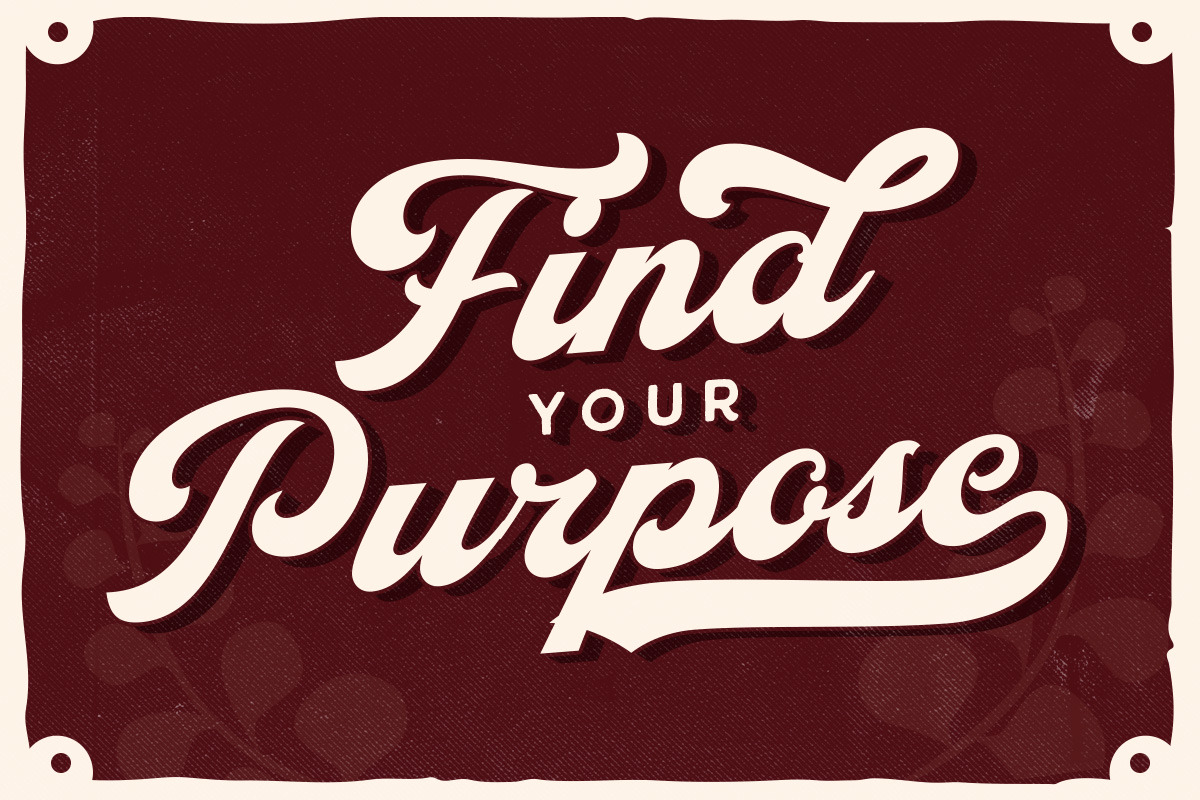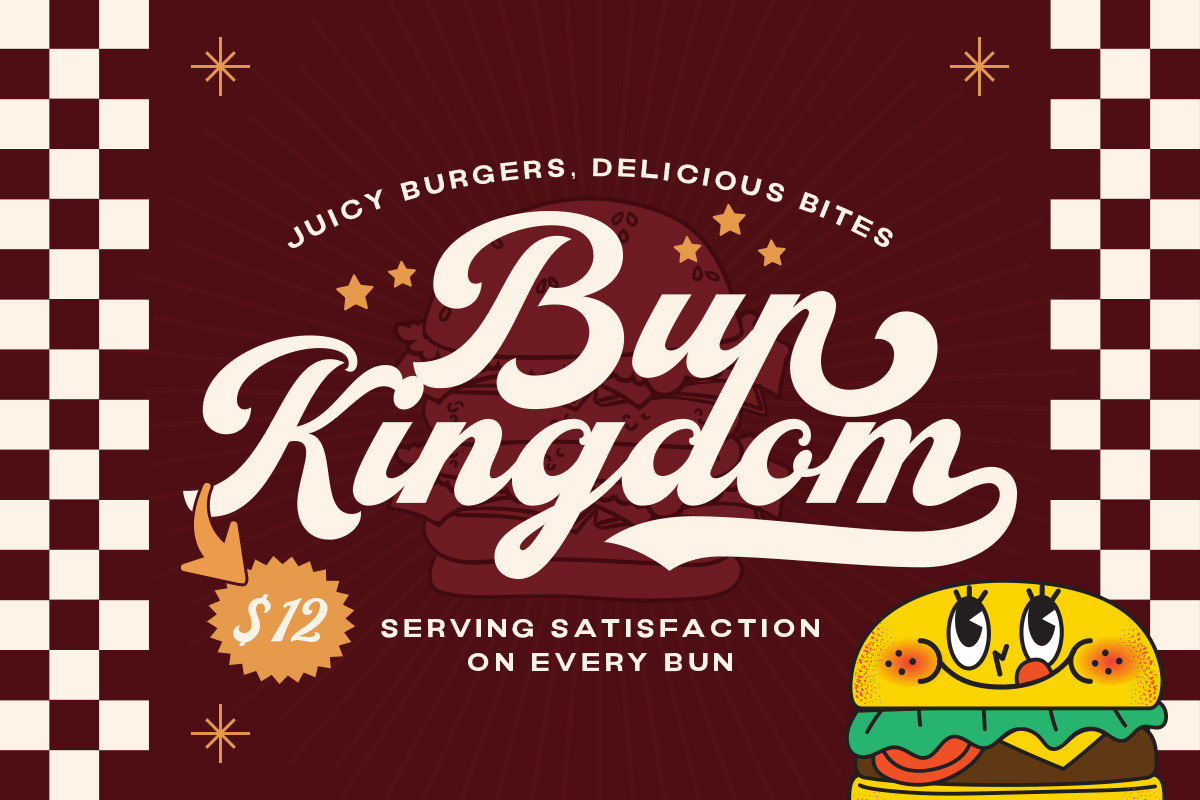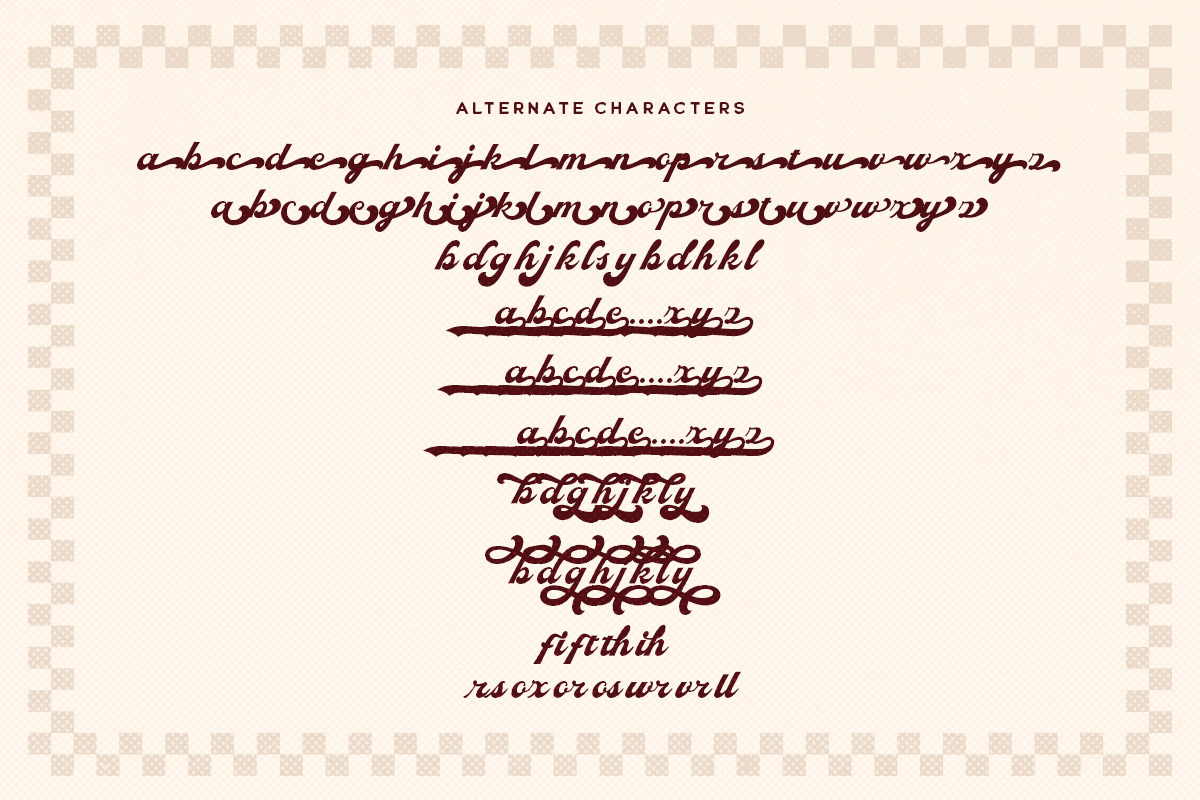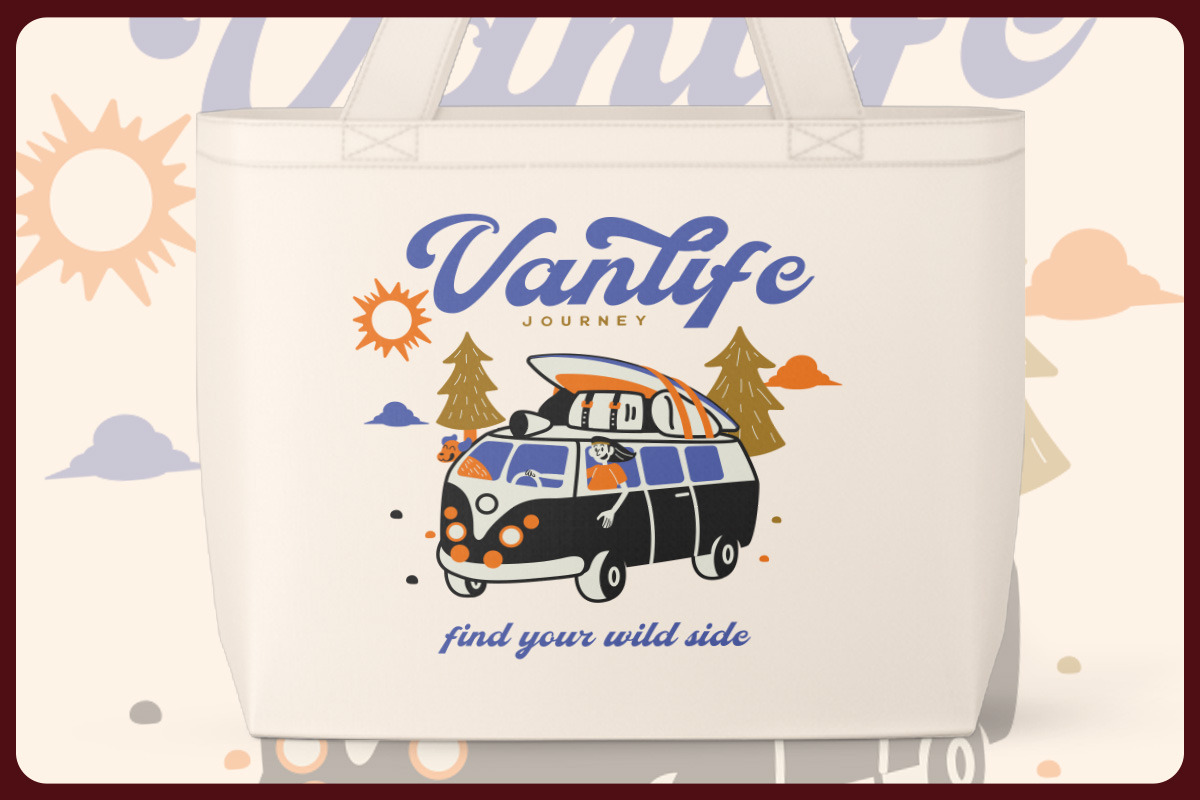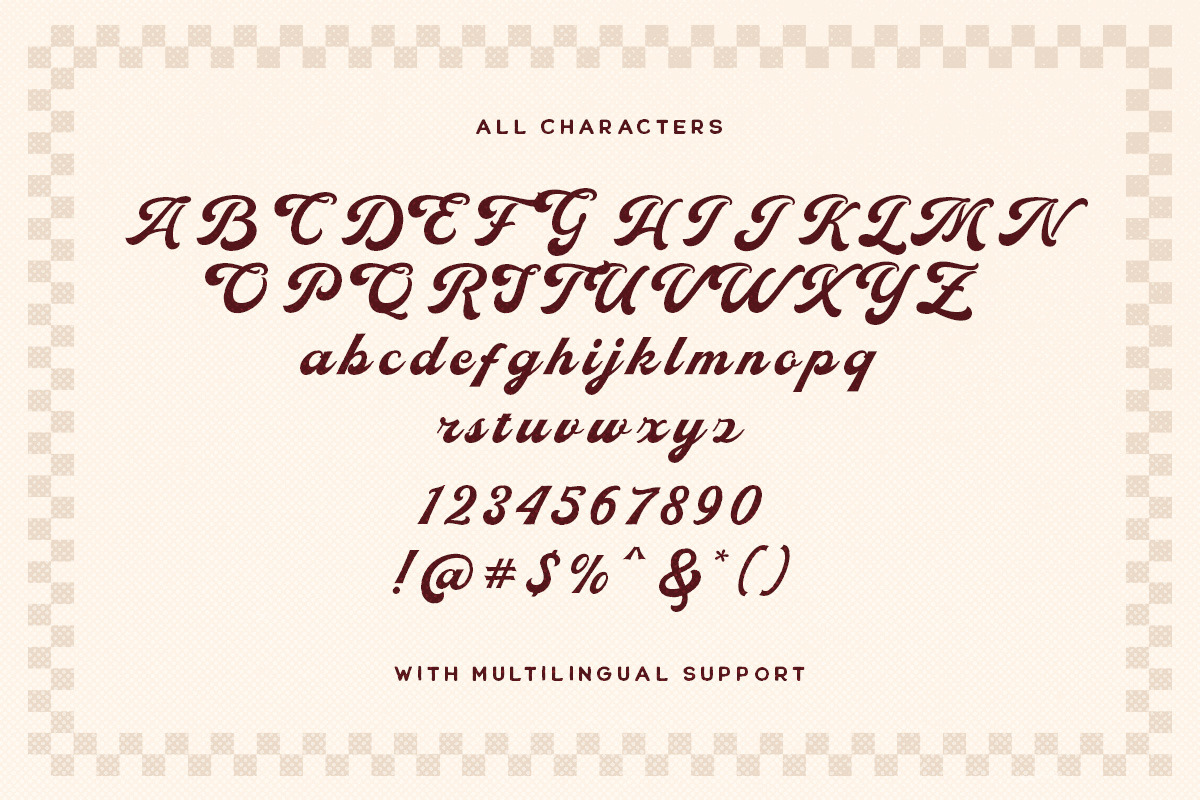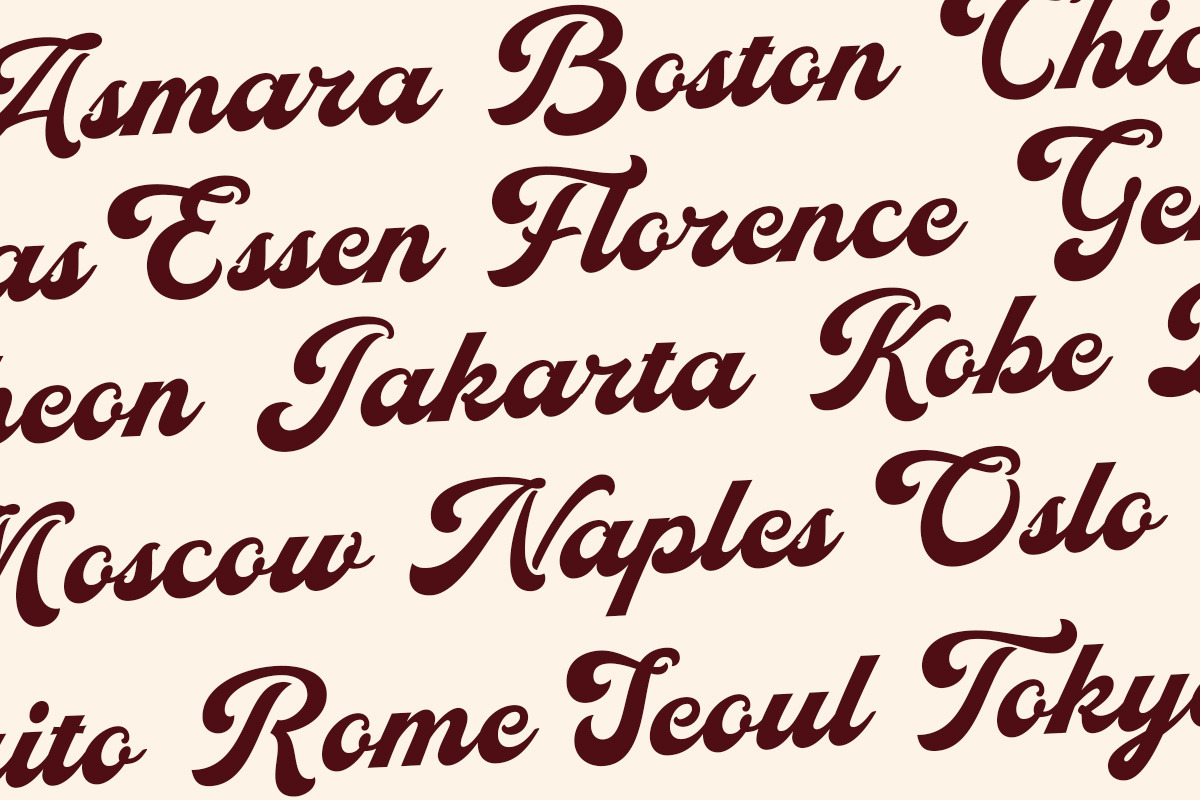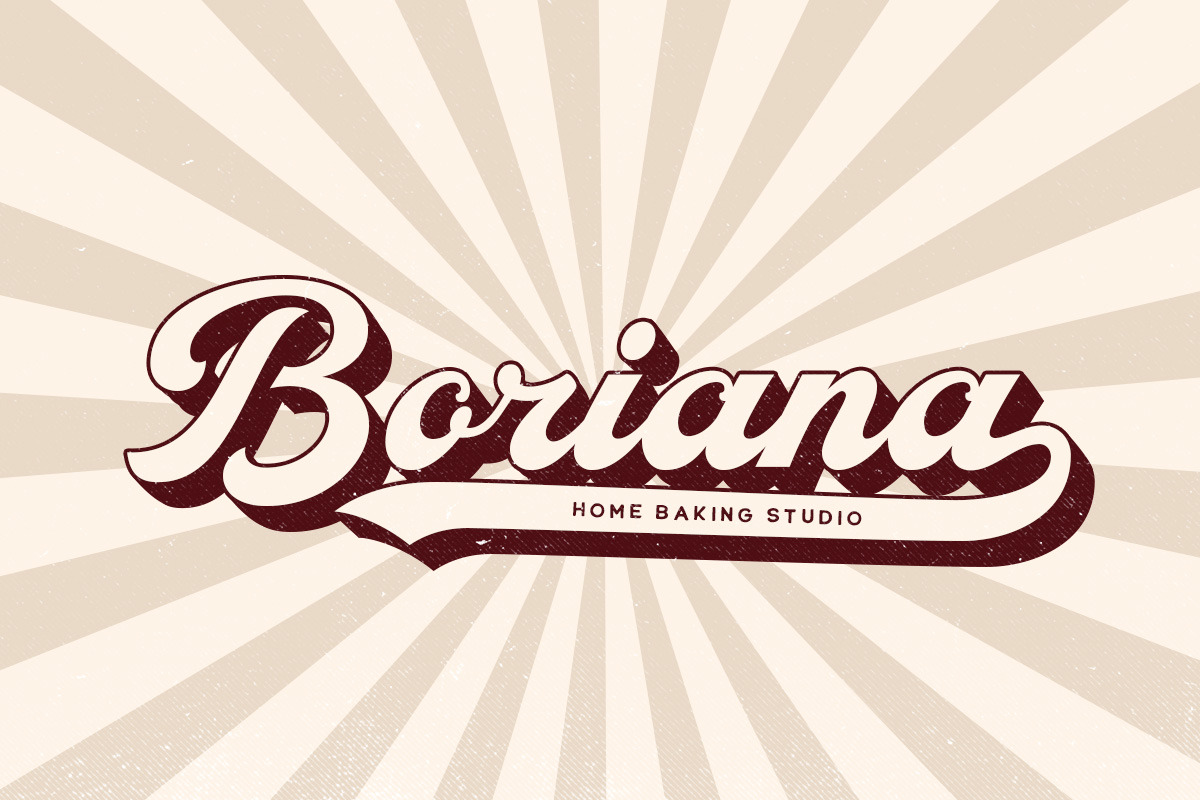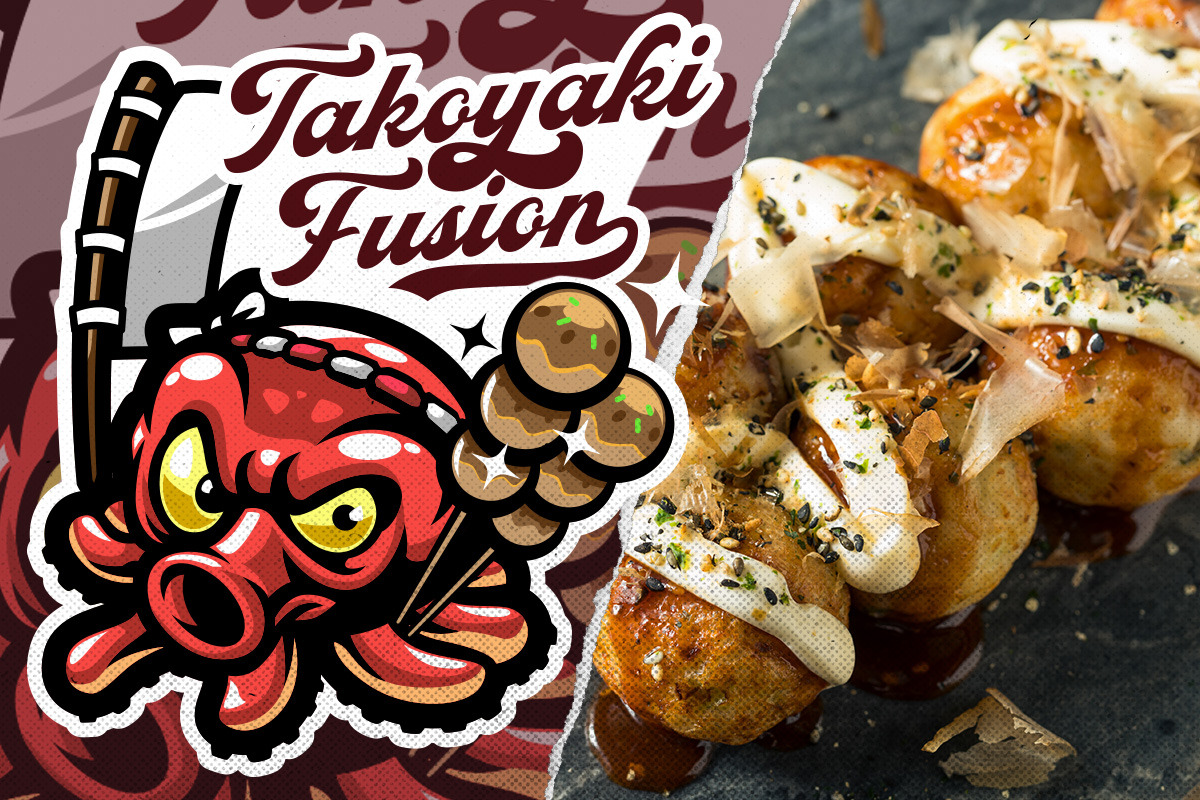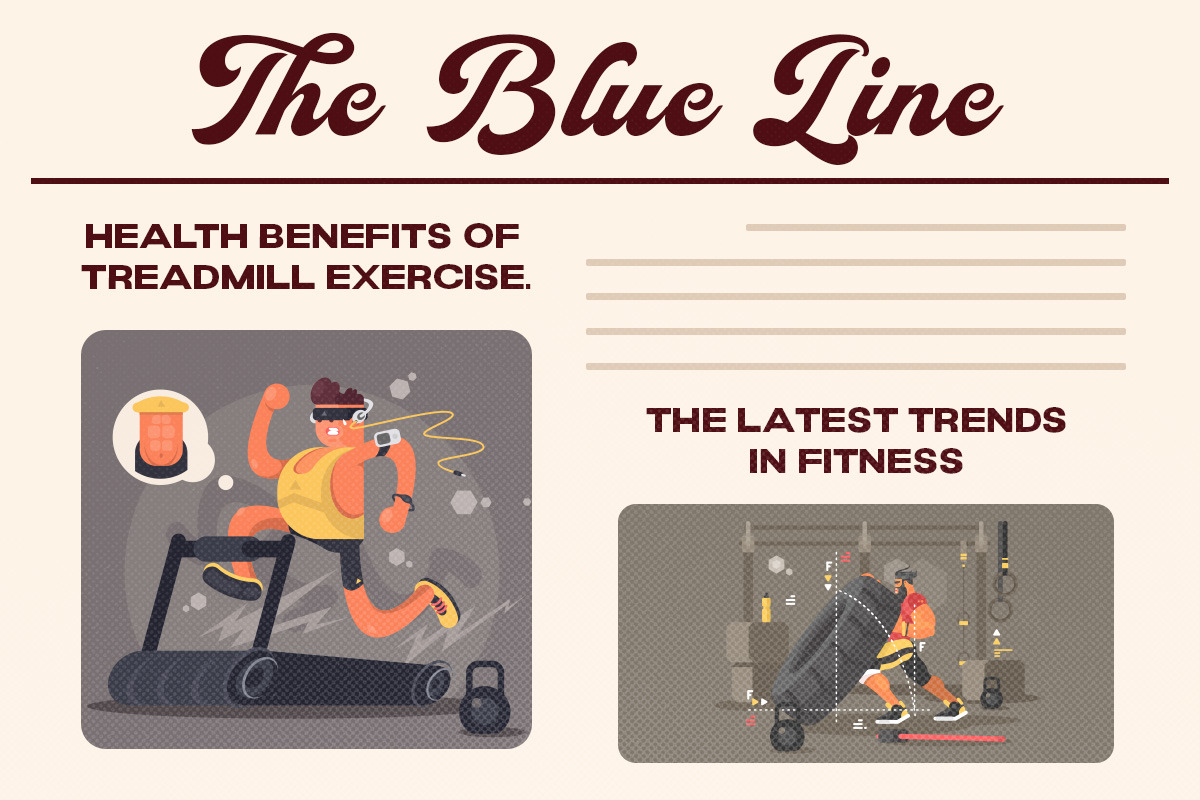
Midesto - Versatile Script
Introducing Midesto, a versatile script font that embodies classic and vintage-inspired typeface adds a touch of timeless charm to any design. Whether you're working on branding projects, signage, or packaging,and the other various formal forms such as invitations, labels, logos, or any type of advertising purpose this font is your go-to choice for creating a memorable and distinct visual experience.